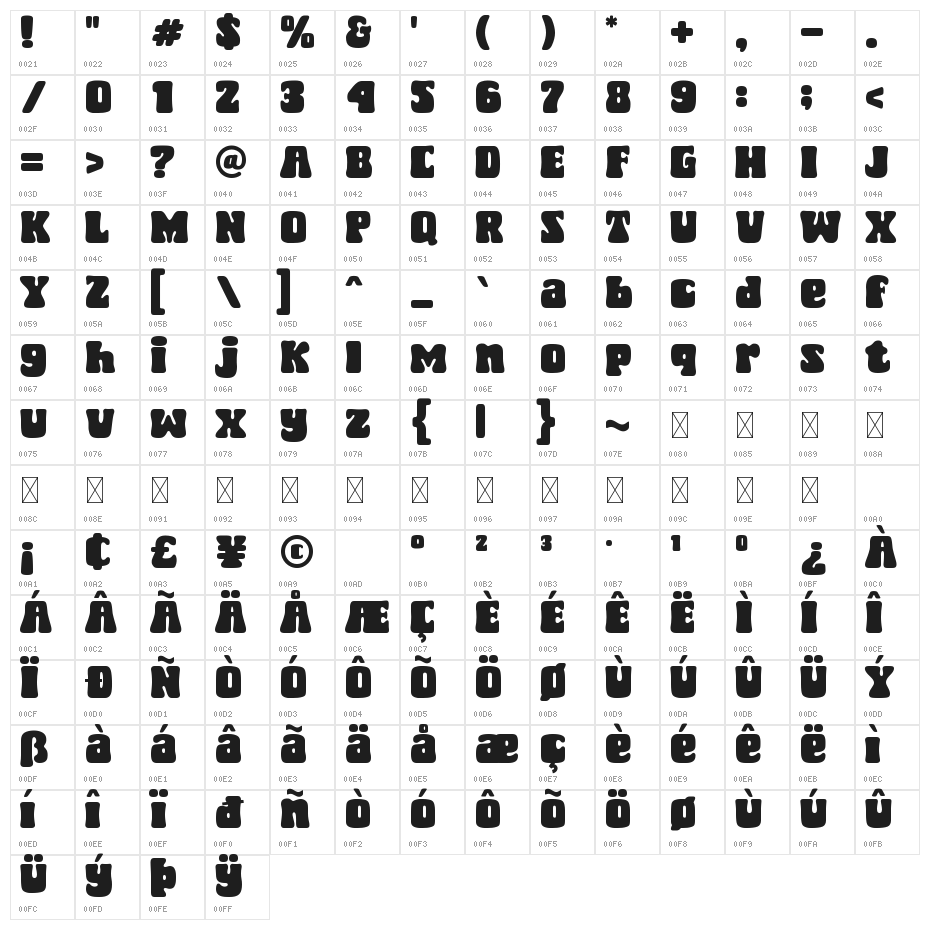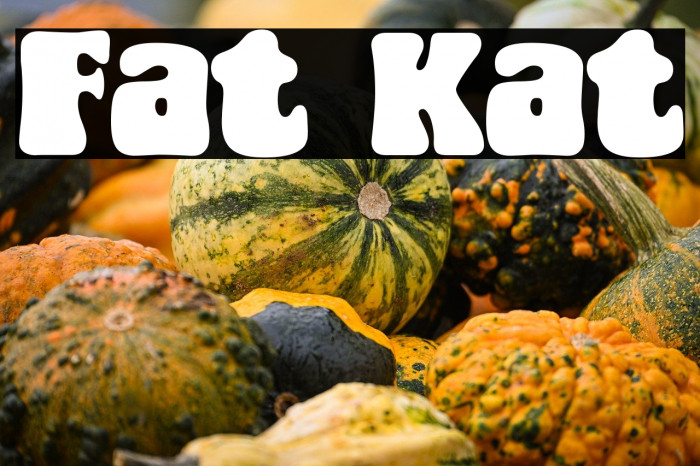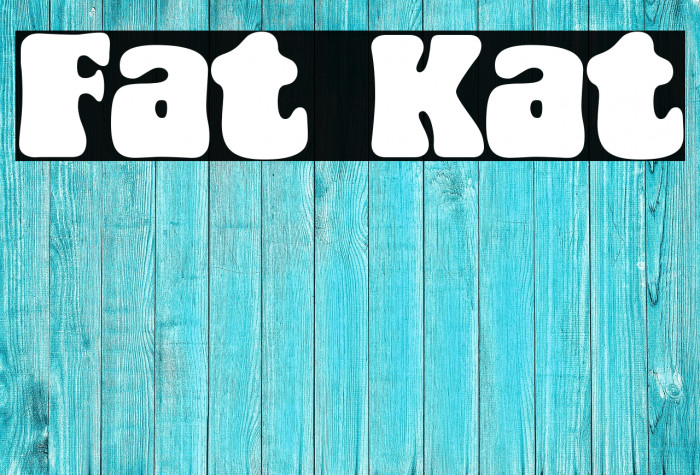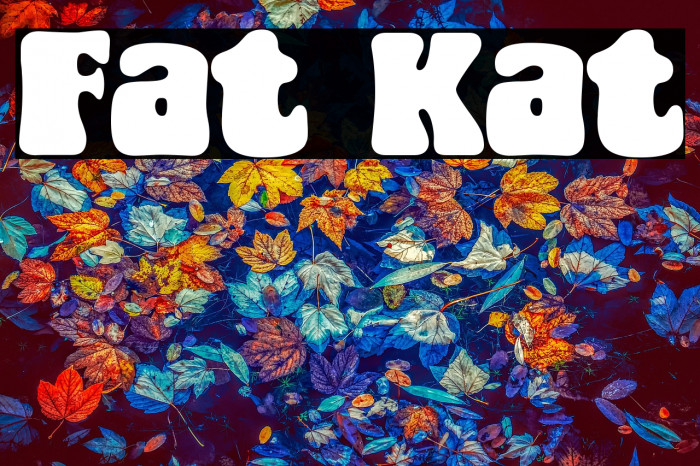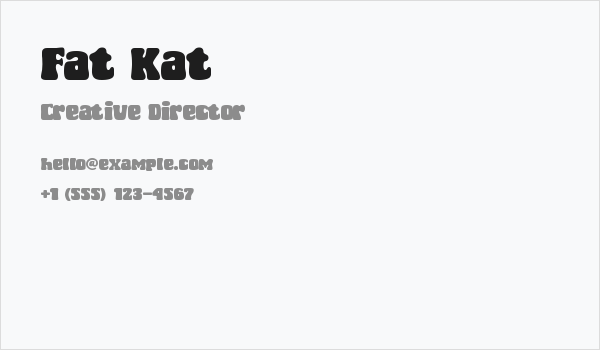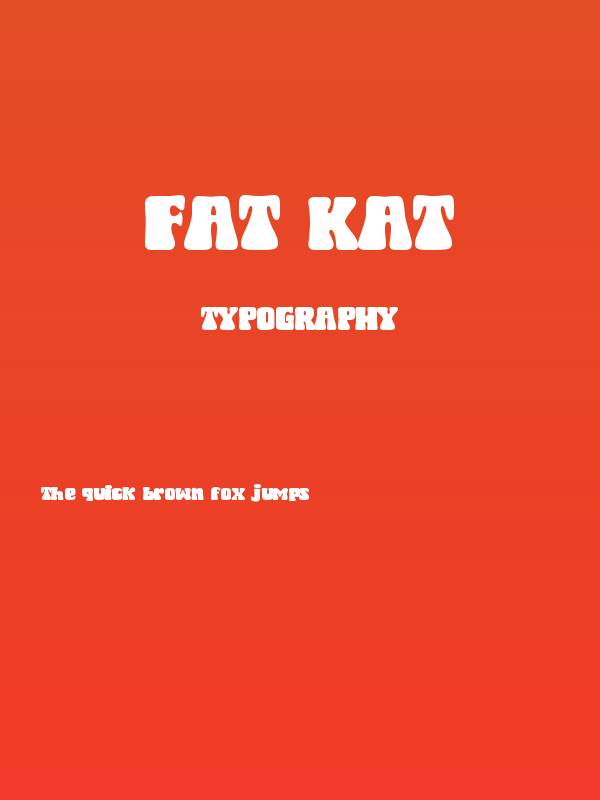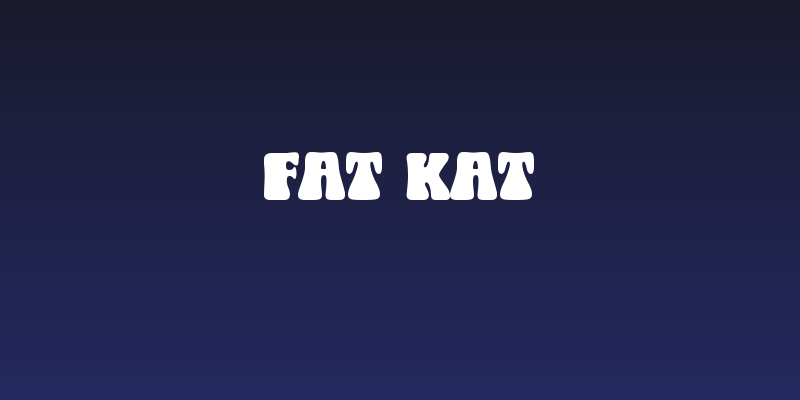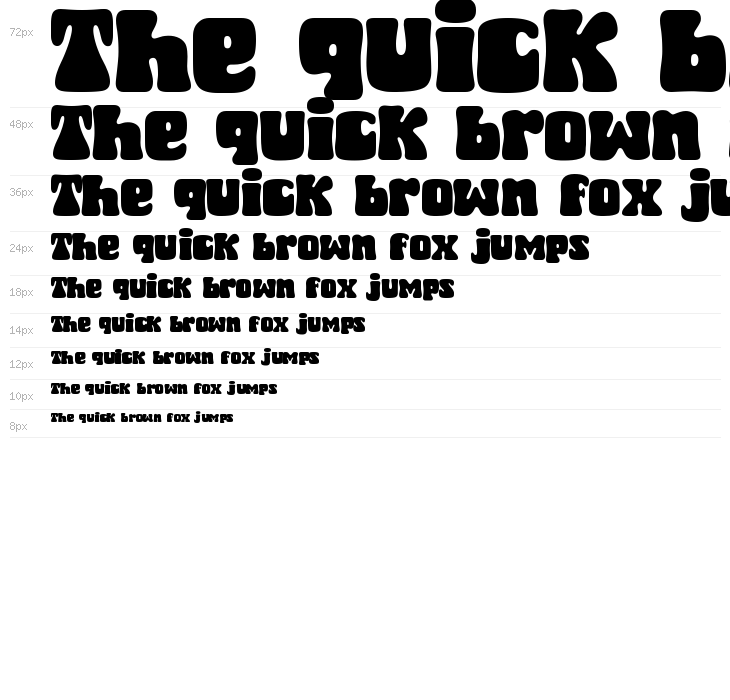
Fat Kat Font
Fat Kat Description
This font features a bold and playful design with thick, rounded characters that convey a sense of fun and whimsy. The letters are heavily weighted, giving them a substantial presence on the page. The style is reminiscent of retro or vintage aesthetics, with a modern twist that makes it suitable for contemporary designs. The characters are closely spaced, enhancing the bold appearance and creating a cohesive look. The font includes a full set of uppercase and lowercase letters, numbers, and a variety of special characters, making it versatile for different design needs.
| Overall Style | Retro, Playful |
| Proposed Projects | Ideal for children's books, playful branding, retro-themed posters, and eye-catching headlines. |